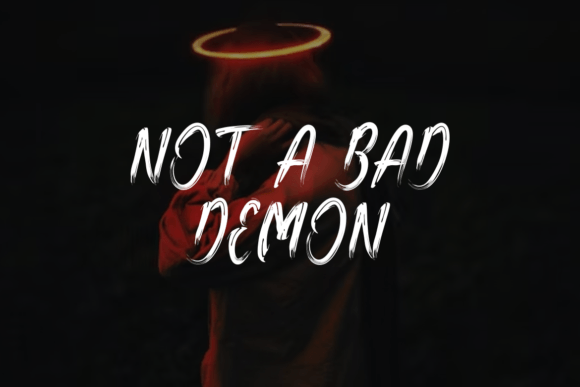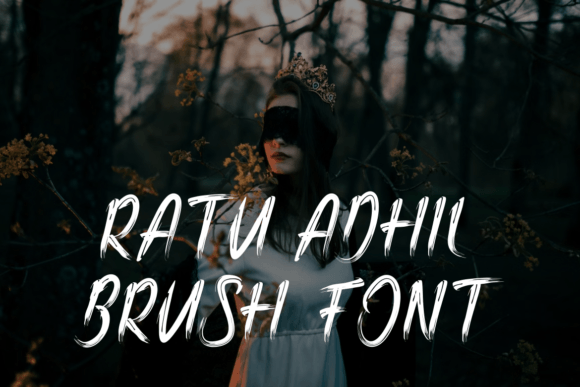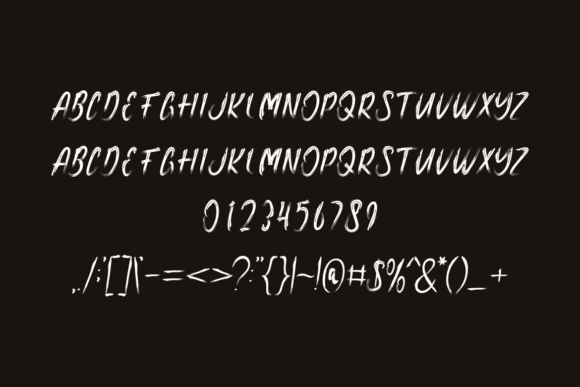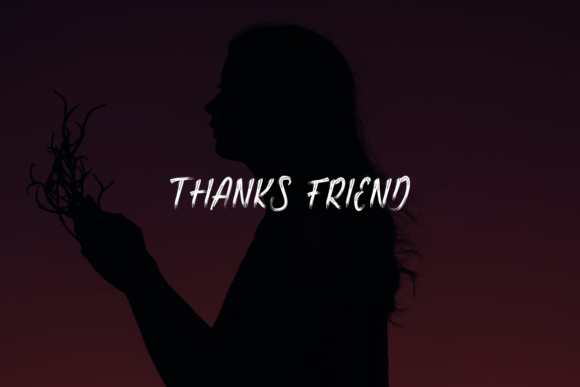
Introduction to Ratu Adhil Brush Font
Have you ever found yourself in a creative moment, struggling to find the perfect font to convey your artistic vision? The right font can make all the difference in elevating your design from good to great. That’s why we’re excited to introduce you to the Ratu Adhil Brush Font, a stunning design resource that’s sure to take your creative projects to the next level.
With its smooth, flowing letters and modern, artistic feel, the Ratu Adhil Brush Font is perfect for designers looking to add a touch of elegance to their work. Whether you’re creating invitations, logos, or posters, this high-quality font is sure to impress. And the best part? It’s available for free download, complete with a transparent background, making it easy to integrate into any design.
As a valuable resource for designers, the Ratu Adhil Brush Font offers endless possibilities for creative expression. Its versatility and high quality make it an essential addition to any design arsenal.
Key Features of Ratu Adhil Brush Font
- Unique Hand-Drawn Design: Ratu Adhil Brush Font offers a distinctive, hand-drawn design perfect for creative projects requiring a personal touch.
- Perfect for Creative Projects: Ratu Adhil Brush Font is ideal for use in creative projects such as logo design, branding, and advertising, where a unique and personalized touch is required.
Honest Review: Ratu Adhil Brush Font
Here are some of the things that work well with this font:
- ✨ The unique brush strokes give a beautiful, handmade feel to any text.
- ✨ The font is highly customizable, making it perfect for a wide range of creative projects.
- ⚠️ The font may not be suitable for small text sizes, as the brush strokes can become difficult to read.
- ⚠️ The font is only available in a limited number of weights and styles.
Overall, I’m really impressed with the Ratu Adhil Brush Font. It’s a great choice for designers looking to add a touch of creativity and uniqueness to their projects. With a little experimentation, I’ve been able to achieve some amazing results with this font.
The Ratu Adhil Brush Font is ideal for creative projects, such as invitations, posters, and social media graphics. It’s also great for use in presentations and documents, such as business proposals and reports. With its unique and elegant design, the Ratu Adhil Brush Font is sure to make your designs stand out.